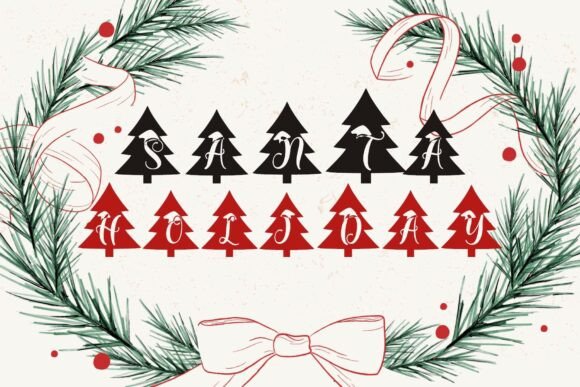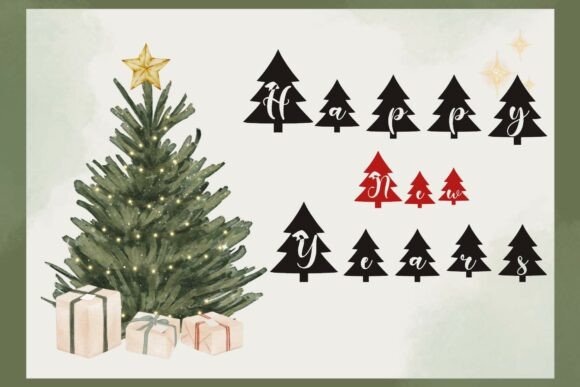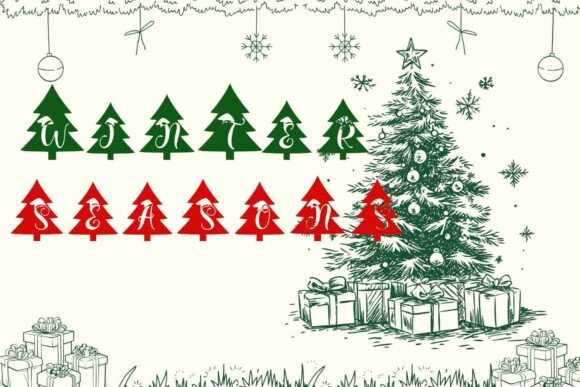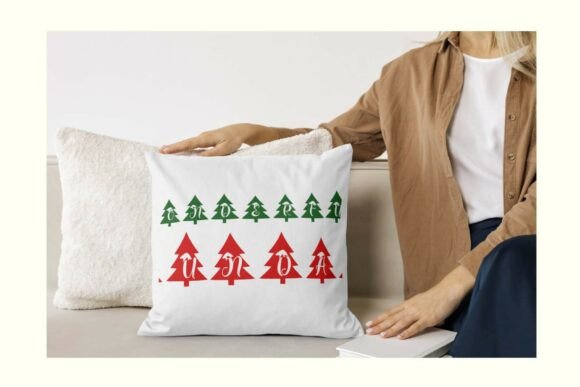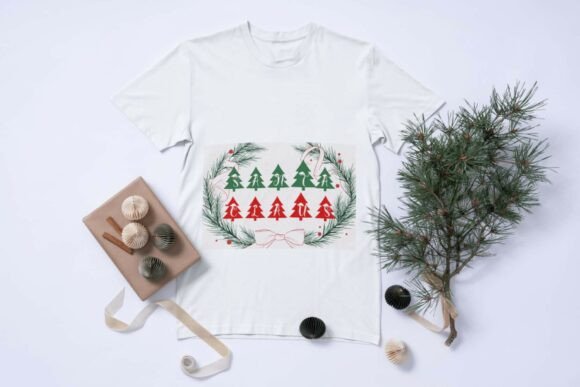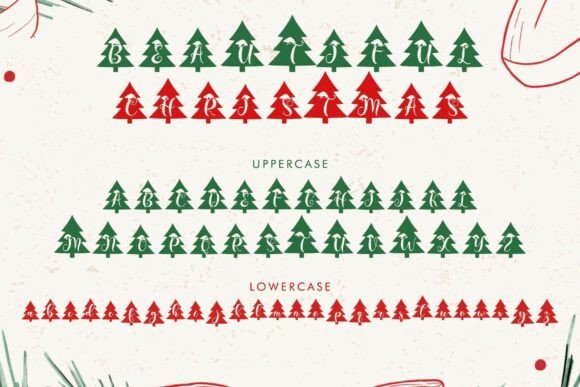
Deck the Halls with a Festive Touch
As the holiday season approaches, I find myself rummaging through my design archives, searching for the perfect font to add a touch of magic to my Christmas creations. It’s that time of the year when a beautifully designed font can make all the difference in spreading joy and cheer. And, I’m excited to share with you a font that has captured my heart – the Beautiful Christmas Tree Font.
This delightful font combines a cute Christmas tree with a beautiful monogram, making it a perfect addition to any holiday design project. With its comprehensive features, including uppercase and lowercase letters, numerals, punctuation, and multilingual support, the Beautiful Christmas Tree Font is a valuable asset for designers looking to create unique and festive designs.
- Unique Characteristics: Custom-designed ornaments, intricate tree details, and a festive atmosphere, perfect for Christmas-themed designs.
- Font Style: Script, with a whimsical and elegant feel, suitable for titles, headings, and other decorative text elements.
Designer Review: Beautiful Christmas Tree Font
Overall, I was quite impressed with the “Beautiful Christmas Tree Font”. ✨ The font’s unique design and elegant feel make it perfect for holiday-themed projects, such as greeting cards, posters, and even merchandise. The intricate details and ornate elements of the font add a touch of sophistication and luxury, making it stand out from more generic font options.
One of the things I liked most about this font is its versatility. ✨ It can be used in a variety of contexts, from traditional Christmas decorations to modern, minimalist designs. The font’s range of weights and styles also make it easy to customize and adapt to different design needs.
However, I did encounter a few limitations with the font. ⚠️ One of the main issues is its limited character set. The font only includes uppercase letters, numbers, and a few special characters, which can make it difficult to use in situations where you need to typeset entire paragraphs or use punctuation marks. Additionally, the font’s intricate details can sometimes make it difficult to read at smaller font sizes.
Here are some specific pros and cons of the font:
- ✨ Unique and elegant design
- ✨ Versatile and adaptable
- ⚠️ Limited character set
- ⚠️ Can be difficult to read at smaller font sizes
To get the most out of the Beautiful Christmas Tree Font, try combining it with other festive fonts and graphics, such as snowflakes, holly, or Christmas trees. You can also use the font in a variety of colors and sizes to add visual interest to your design.
The Beautiful Christmas Tree Font is perfect for a variety of holiday projects, including:
- Holiday cards and invitations
- Gift tags and wrapping paper
- Christmas tree ornaments and decorations